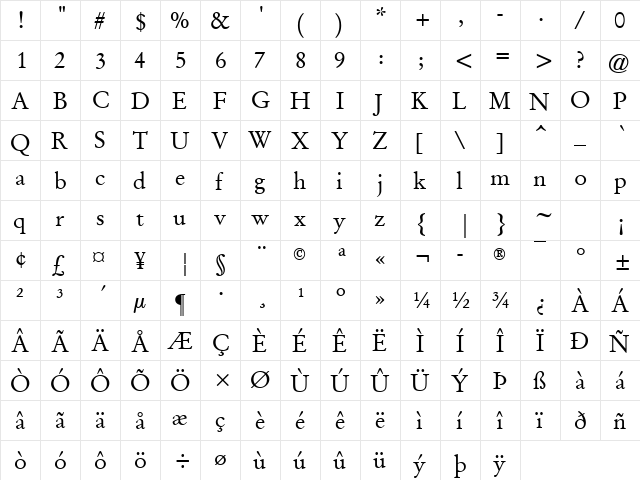
GaryOwen
Design Context for GaryOwen Typeface
GaryOwen takes a measured approach to typography — its balanced proportions and neutral character make it a reliable workhorse for both digital and print work.